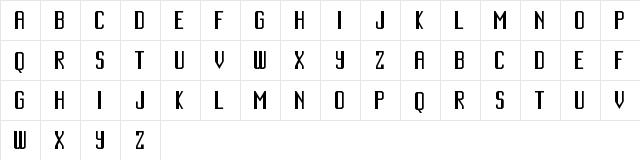
Cinematic Language Regular
| Designer | GeronimoFonts |
Design Context for Cinematic Language Typeface
Cinematic Language offers clean, dependable letterforms without strong stylistic allegiance, making it a practical choice for designers who need flexibility.